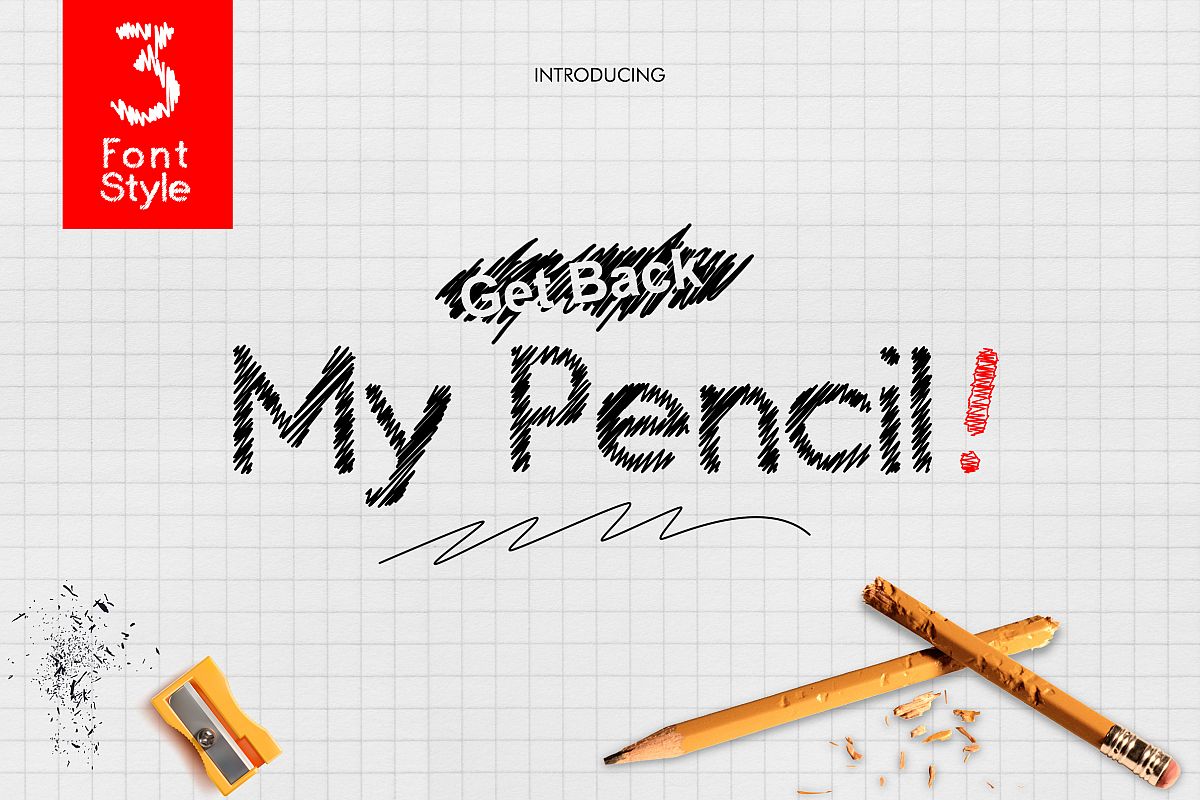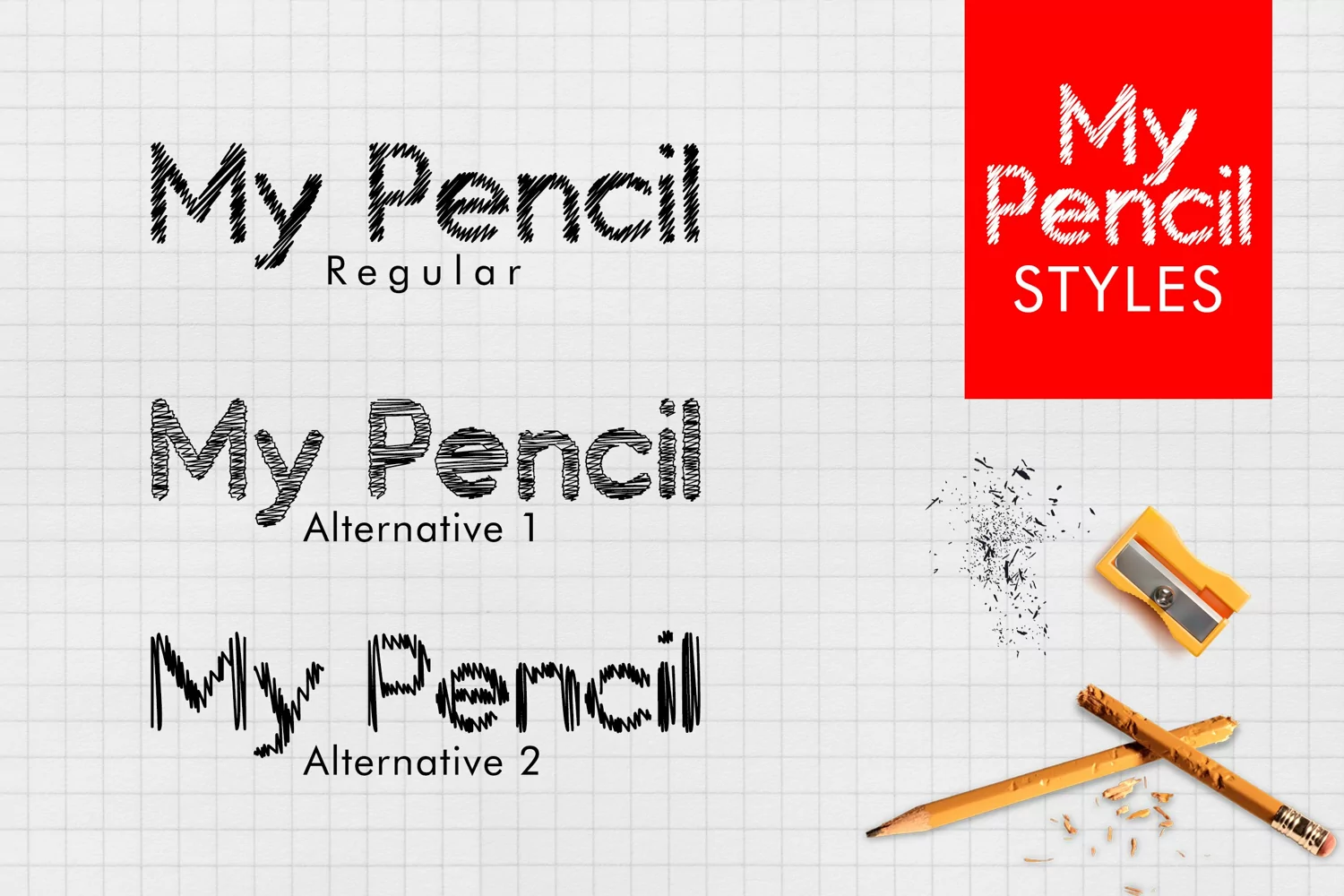
My Pencil font with a touch of rough pencil scratch your fun project. My Pencil font has 3 different styles, regular, alternative 1 & alternative 2. My Pencil font suitable for logo, branding, greeting card, branding, poster and any design that you create.